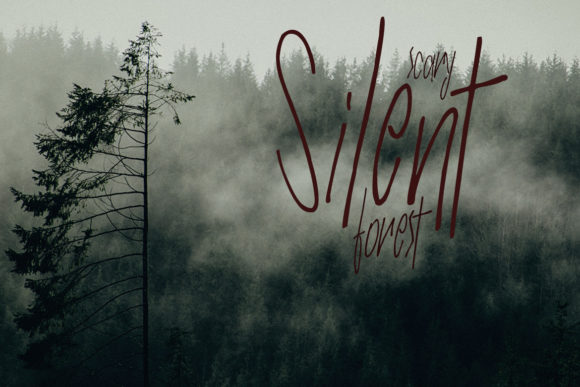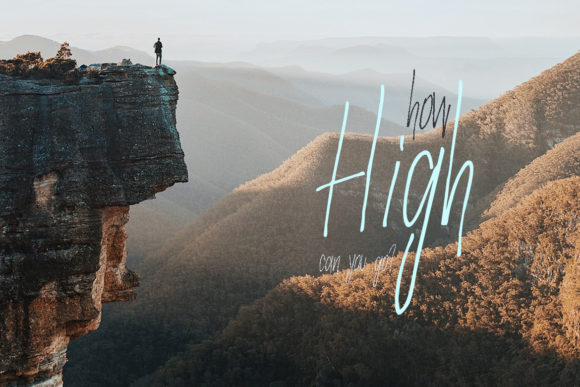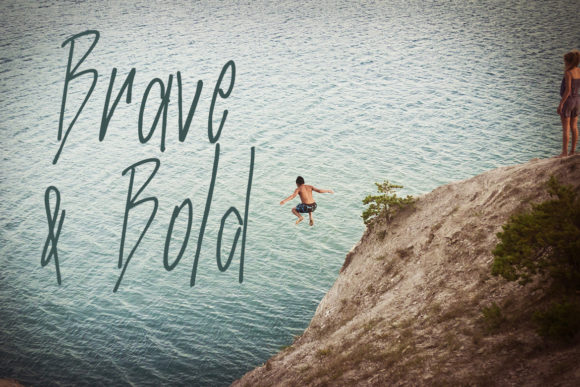
Slender Thin Font
About Slender Thin Font
The Slender Thin is a script font that shows eagerness to challenge the fear in you.
It’s perfect for greeting cards, branding materials, invitations, quotes, posters, and more!!